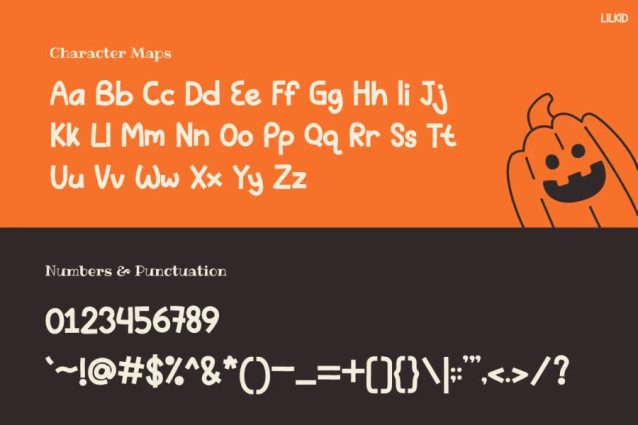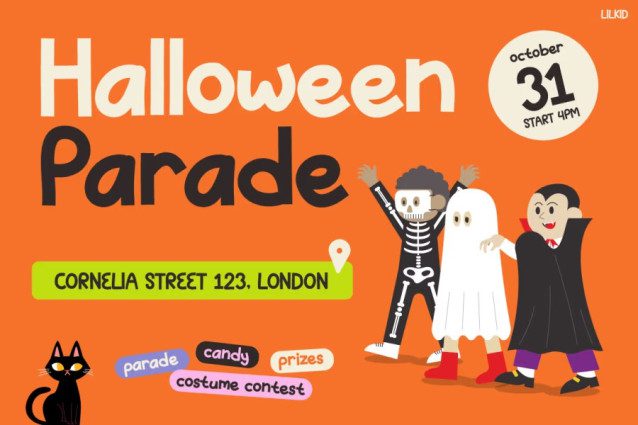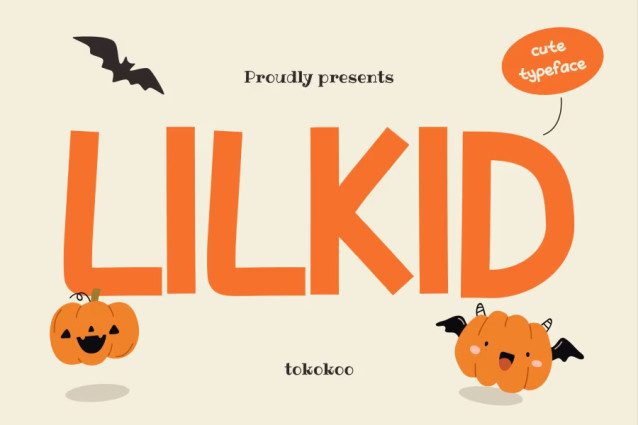
Lilkid Font
Lilkid Font is a cheerful and spooky typeface that captures the magic of Halloween through a child’s imagination. Each letter bounces with energy — chunky, round, and full of charm. Moreover, the design feels friendly and alive, turning simple words into fun and exciting visuals.
This font combines bold lines with soft, rounded shapes, making it easy to read and enjoyable to use. Therefore, it’s perfect for playful projects that need a touch of Halloween spirit. Imagine happy pumpkins, cute ghosts, and smiling monsters all dancing on your screen — that’s exactly the mood LILKID brings to your designs.
From Halloween party invites to candy bag labels, it adds warmth and joy to any creative project. In addition, every curve feels hand-drawn, giving it a cozy and personal touch. Kids Font LILKID turns spooky into sweet, making your design feel fun instead of scary.